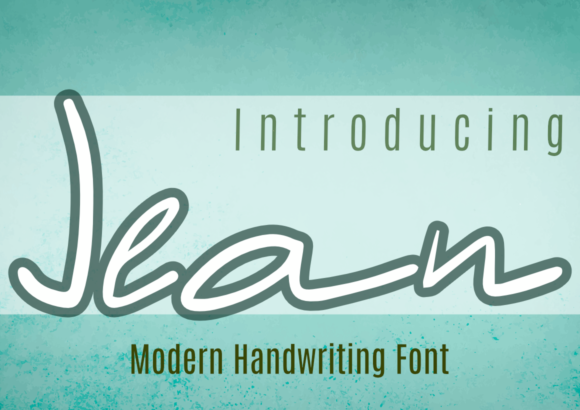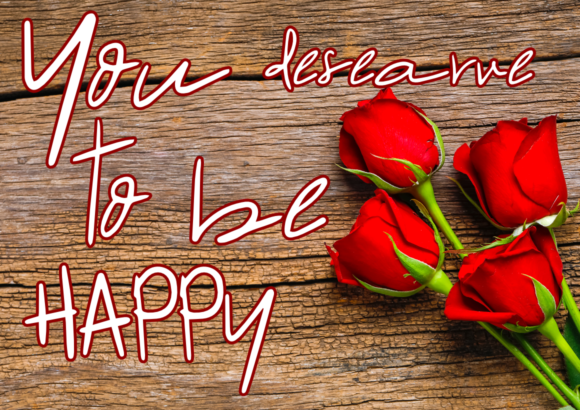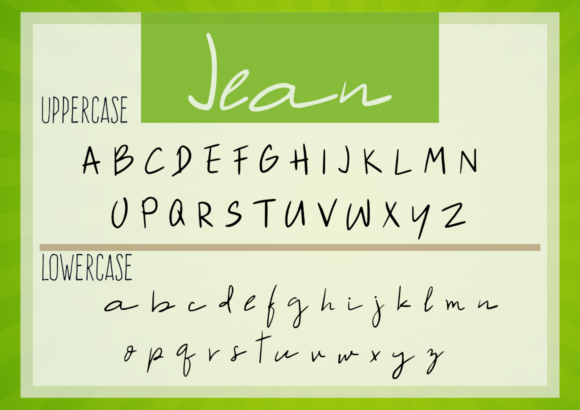
Jean Font
About Jean Font
Jean is a cute and casual handwritten font with an incredibly friendly feel. Fall in love with its relaxed style and use it to create gorgeous wedding invitations, beautiful stationary art, eye-catching social media posts, and cute greeting cards.